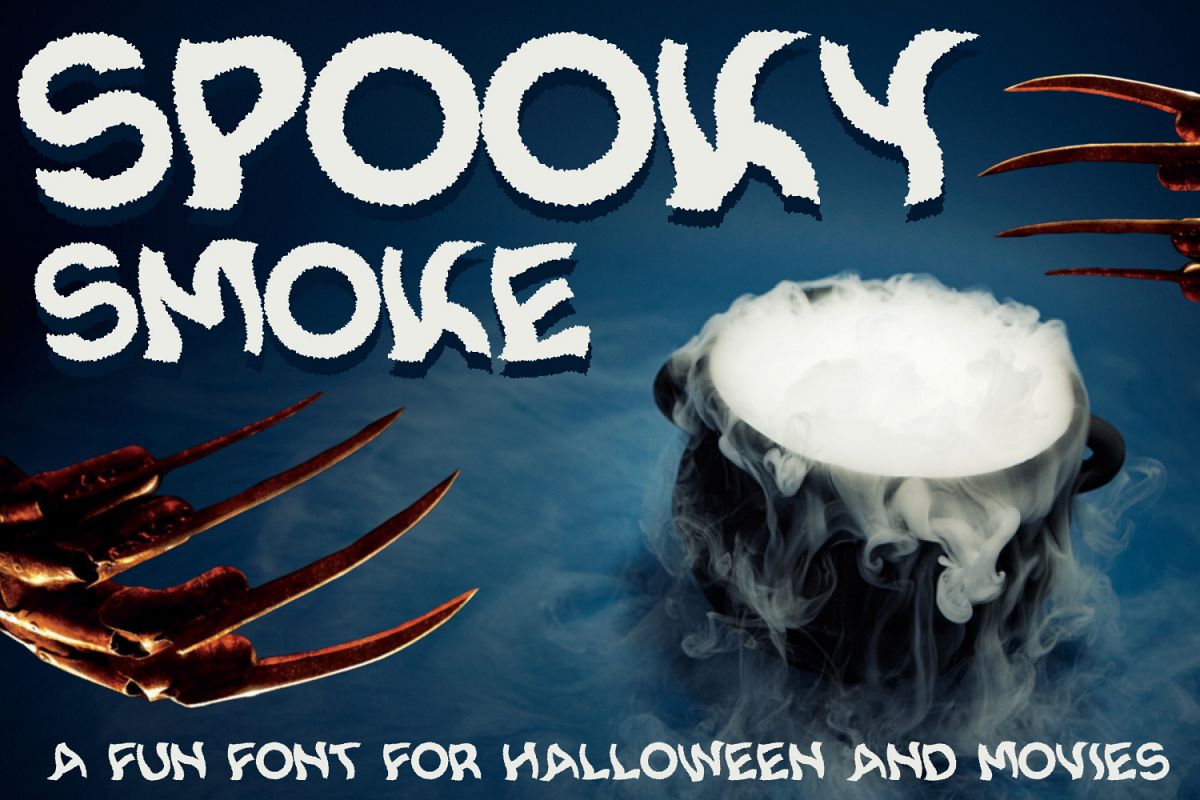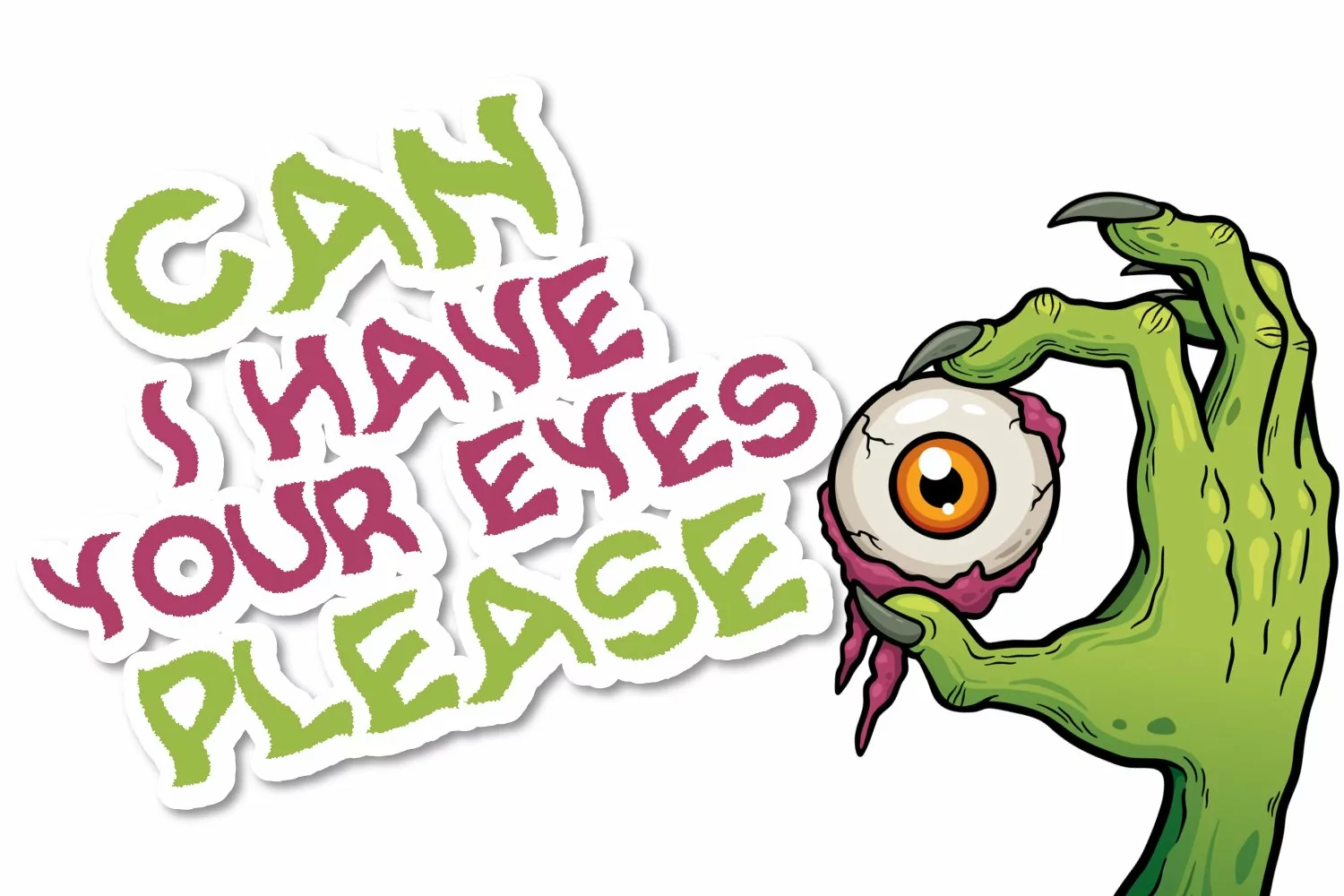
Spooky Smoke - Halloween & Twisted Font
If you are looking for perfect font for designing fun project and specially related to halloween and related events like christmas then, This font is specially made for you. Kids Parties, Cards, invitation all over places you can use this one. A perfect example of crafted font which you should buy right now.